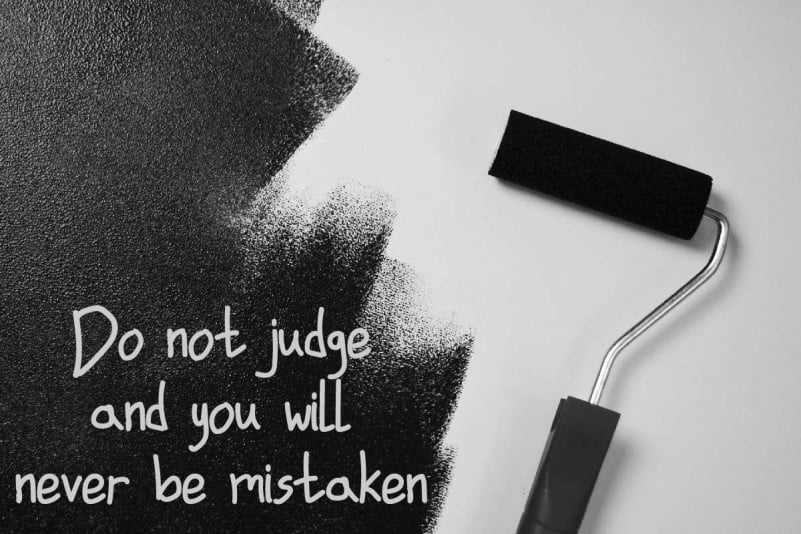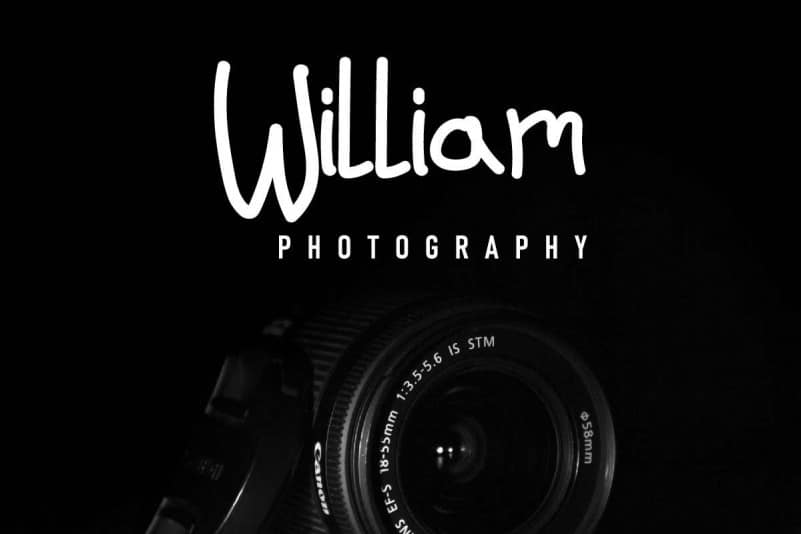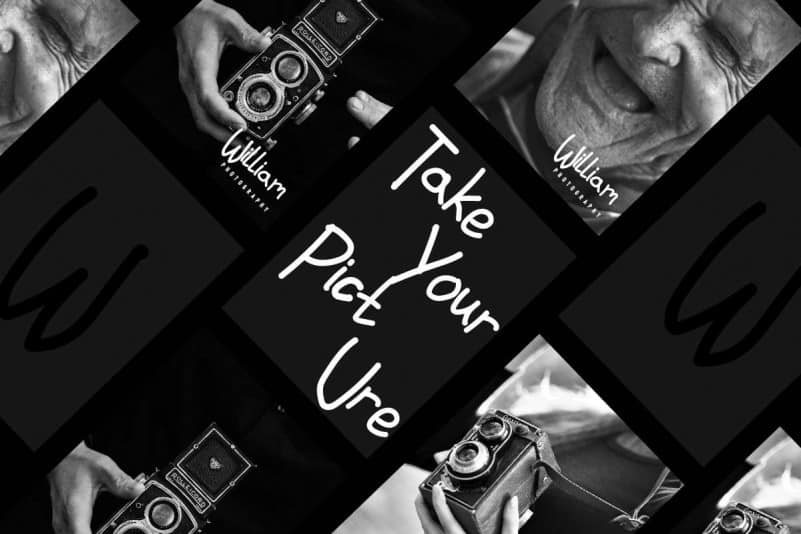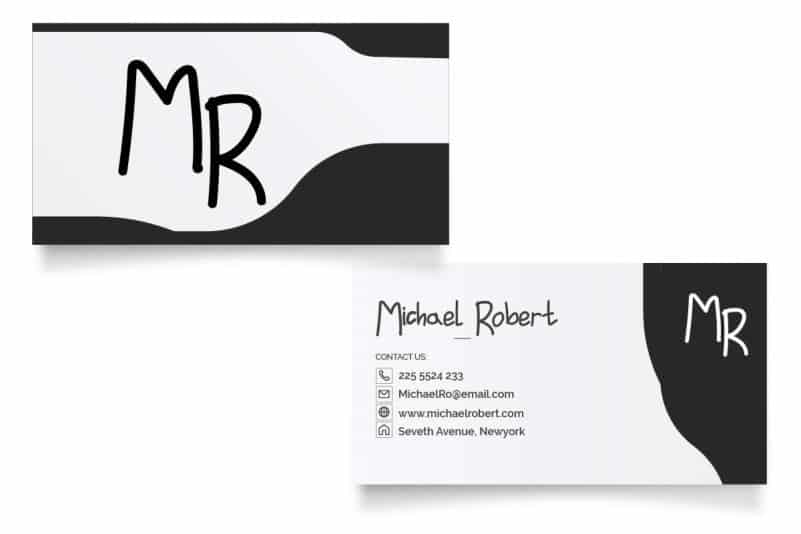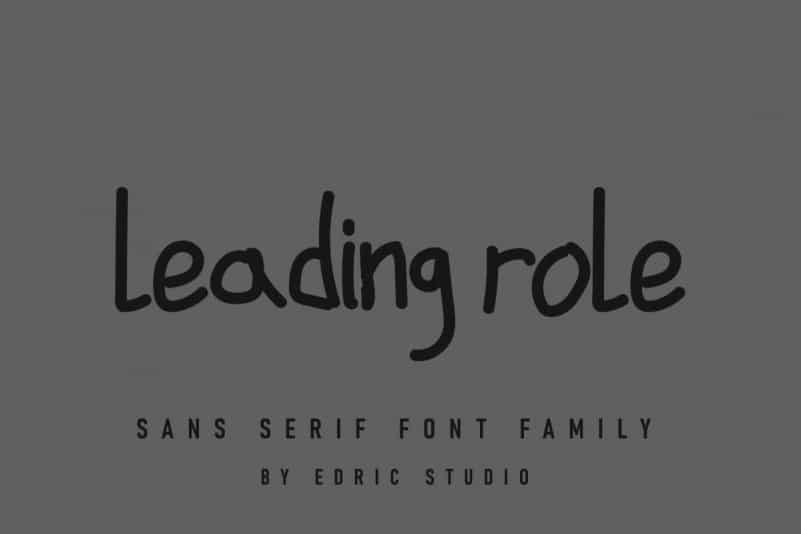
Leading Role Sans Serif Font
Leading Role Sans Serif Font has a fun characters/glyphs set, perfectly managed with well spaced and kerning. The theme style of this font will be fun, comic, handwriting, classic and handwritten style. Remember it’s Leading Role Font.
Leading Role Sans Serif Font will be awesome for any projects including : branding, logo, stationery, business card, signage, flyer, brochure etc.